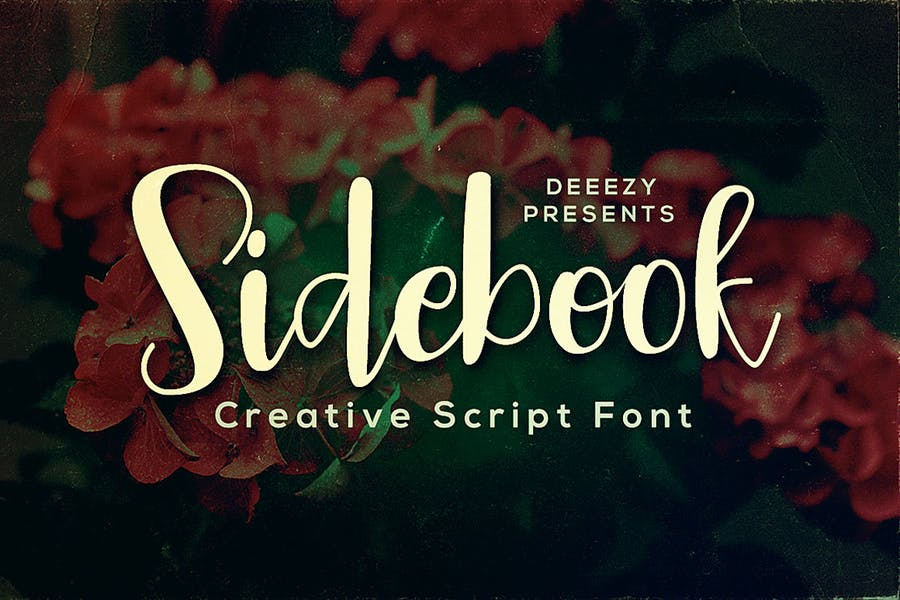
Sidebook Script Font
Sidebook Script Font is perfect for handwritten book titles, personal journal branding, indie author book covers, artisan coffee shop signage, handmade craft packaging, boutique stationery design, casual restaurant menus, creative agency identity, personal blog headers, intimate wedding invitations, storytelling presentations, and authentic brand narratives.
Sidebook Script Font is exciting because it captures the intimate charm and personal warmth of handwritten journals with authentic script letterforms that feel like treasured personal correspondence, creating genuine emotional connections that make brands feel approachable, human, and authentically crafted by hand.
The Sidebook Script Font family includes personal variations: Regular, Bold, Light, Casual alternates, Connecting ligatures, and Hand-drawn flourishes, providing designers with a complete handwritten typography system to create authentic personal communications that resonate with audiences seeking genuine human connection.
The font's naturally flowing letterforms capture the organic beauty of everyday handwriting while maintaining excellent legibility and professional polish. Each character feels spontaneous and personal, as if written by a friend, creating compositions that invite readers to slow down and connect on a more meaningful level.
Sidebook Script Font excels in creating memorable brand experiences for businesses that value authenticity, craftsmanship, and personal relationships. Its approachable presence transforms corporate communications into friendly conversations, making it perfect for artisan brands, creative services, and small businesses seeking to build genuine customer connections.
Professional designers appreciate how Sidebook Script Font brings warmth and personality to projects without sacrificing readability or professionalism. The font's balanced character and natural flow ensure it performs beautifully in both display applications and extended text, maintaining its handwritten charm across all communication needs.
This remarkable typeface brings instant humanity to digital communications and mass-produced materials. From independent bookstores to handmade soap companies, Sidebook Script Font creates lasting impressions that communicate care, attention to detail, and the irreplaceable value of human touch.